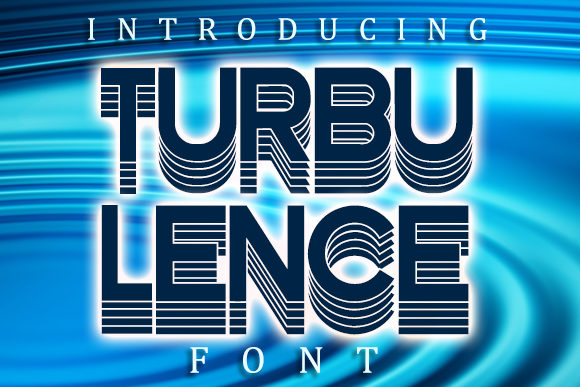
Journey through the cosmos with Turbulence Font, the ultimate display font for all your futuristic and sci-fi designs. Its dynamic strokes and sharp angles will instantly transport your creations to a realm of wonder and imagination.
Step into a world of limitless possibilities, where your designs take on a life of their own. From eye-catching headlines to captivating posters, Turbulence Font is the perfect choice for making a statement. Its unique and visually striking appearance will leave a lasting impression on your audience, ensuring your message is heard loud and clear.
With Turbulence Font, your designs will transcend the ordinary and embrace the extraordinary. Its bold and distinctive character will add an instant touch of intrigue and mystery to your projects, making them stand out from the mundane. Unleash your creativity and let your imagination soar as you explore the vast universe of possibilities with this remarkable font.
Experience the power of Turbulence Font today and embark on an artistic odyssey that will leave you breathless. Let your designs shine with a cosmic brilliance and ignite the imaginations of all who behold them.